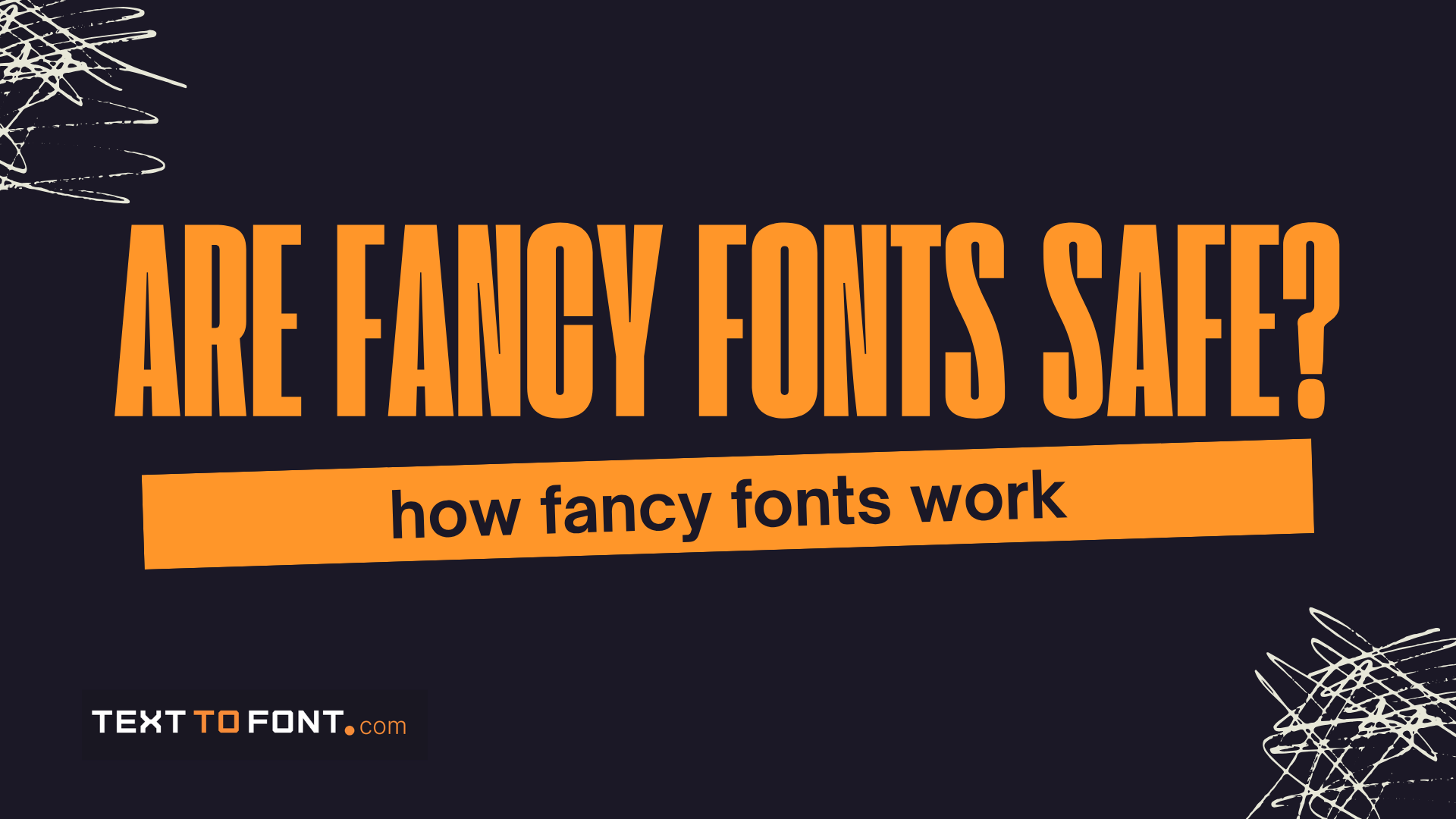
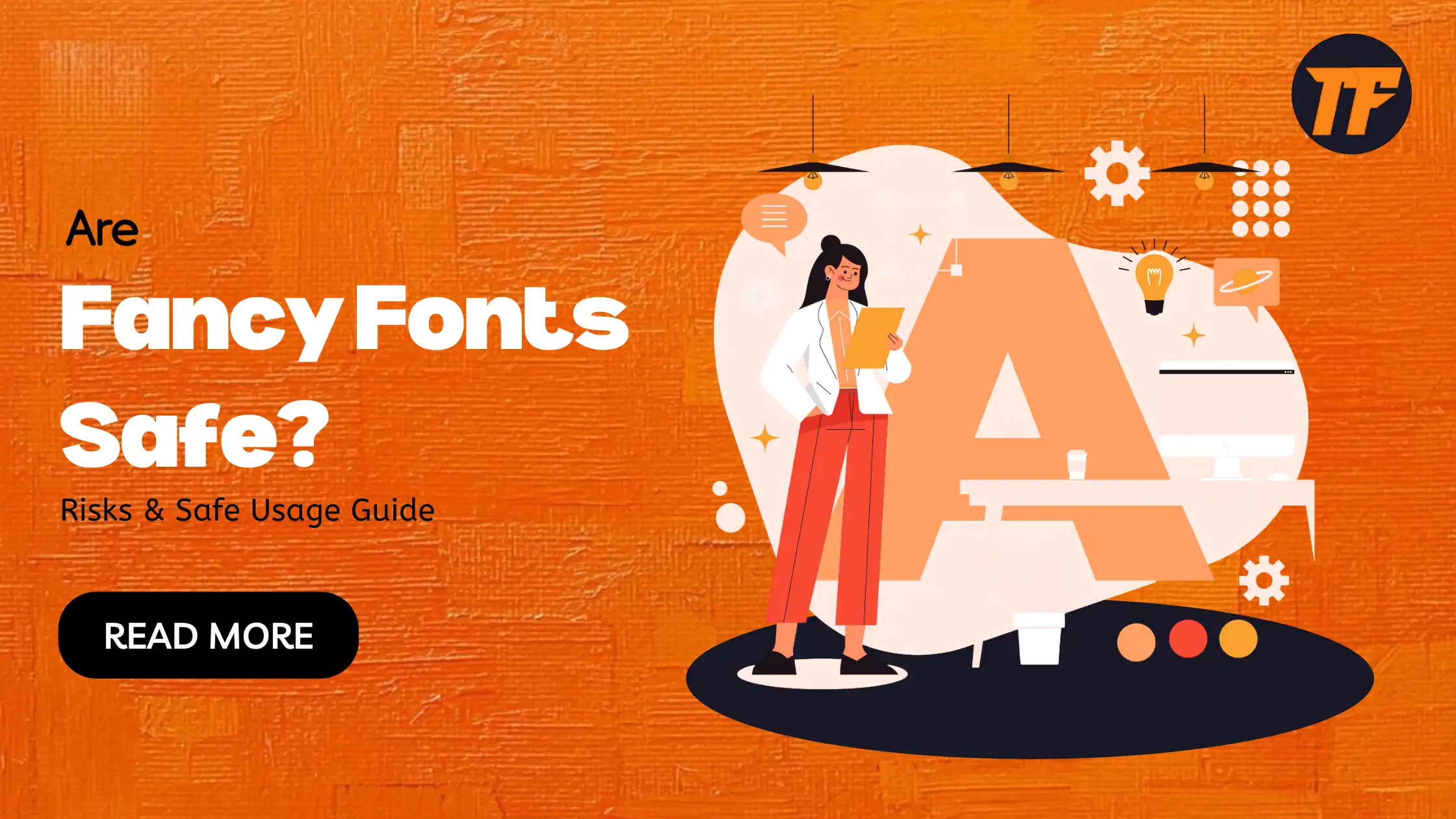
Fancy fonts are text styles that use different letters, symbols, emojis, and decorative characters. People often use them on social media, messaging apps, and online profiles to make their messages stand out.
While they can make text look fun and unique, not all fancy fonts are safe to use. Some can cause compatibility issues, glitches, or even security risks. In this article, we will explore how fancy fonts work, the risks they may pose, and tips for using them safely.
fancy fonts are generally safe for everyday use on social media and messaging apps. The main risks come from untrusted font generators (hidden scripts, data collection) not from the fonts themselves
Fancy fonts are text styles that go beyond standard letters and numbers. They often include symbols, emojis, accented characters, or decorative shapes that make text look unique or artistic. These fonts are usually created using Unicode characters, which are special codes that computers recognize as letters, symbols, or emojis.
When you type using a fancy font generator or app, your regular text is converted into these Unicode characters. Most modern devices and apps can display them correctly, but some older systems or platforms may show garbled or missing characters.
In general, fancy fonts are safe to use for fun messages, social media posts, and personal text. They mainly change how letters, numbers, and symbols appear, without affecting your device or accounts. Most modern apps, messaging platforms, and social media sites can display these fonts correctly, and for everyday use, they rarely cause any problems.
However, there are some important nuances to keep in mind. Fonts or generators from untrusted sources could include hidden links, scripts, or tracking codes, which can pose security risks.
Compatibility issues may also occur on older devices, certain apps, or email clients, causing text to appear garbled or broken. By using reputable tools and avoiding sensitive accounts, most users can enjoy fancy fonts safely while minimizing any potential risks.
While fancy fonts are generally safe, there are some risks users should be aware of. Understanding these risks can help you use styled text responsibly.
Some online font generators from untrusted sources embed hidden links, tracking scripts, or malicious code inside the styled text you copy. This overlaps with what security researchers call a 'homoglyph attack' using look-alike
Unicode characters to disguise malicious links or impersonate legitimate brands. Clicking these links or pasting unverified styled text into sensitive fields could expose your device or accounts to phishing attacks or malware
Many online font tools collect user data, such as the text you type or your IP address. Sharing sensitive information through these platforms may inadvertently expose personal data.
Not all devices, apps, or platforms can display fancy fonts correctly. Older operating systems or certain apps may show garbled, broken, or missing characters, which can affect readability.
Using fancy fonts in usernames, email addresses, or social media handles can sometimes be used to impersonate someone or mimic official accounts. This can create confusion or make it easier for scammers to trick others.
Some fancy fonts may be harder to read for people with visual impairments or when using screen readers. Overusing symbols and decorative characters can reduce accessibility and clarity.
Generating fancy fonts safely has become possible with Text to Font. This free tool allows you to convert regular text into decorative, emoji-filled, and stylish fonts without installing any software or risking your data.
Here’s how you can generate fonts with it:
Go to the official website of Text to Font.
Enter your simple text in the designated place.
The tool will convert it into fancy fonts by adding different fonts, emojis, and emoticons.
You can copy any fancy text by clicking on the “Copy” button in front of it.
Fancy fonts are fun to use, but keeping safety in mind ensures you avoid security, privacy, and compatibility issues. Here are some pro tips that can help you in this regard:
Only use fonts and generators from trusted sources to reduce the risk of hidden scripts or malware.
Avoid sharing sensitive information, such as passwords or personal details, in styled text that could be copied or intercepted.
Check how your text appears on different devices, apps, or platforms before sending or posting to ensure it remains readable.
Limit the use of excessive symbols, emojis, or decorative characters to maintain clarity and prevent confusion.
Be cautious when copying or pasting styled text from unknown websites, as it may include hidden links or tracking codes.
Fancy fonts can make text more creative, fun, and eye-catching, and for most everyday use, they are generally safe. However, using fonts from untrusted sources or overloading text with symbols can create security, privacy, and compatibility issues. By understanding how fancy fonts work, being aware of potential risks, and following safe usage tips, you can enjoy stylish text without compromising your device, accounts, or readability.
Yes, overly decorative fonts can be difficult for people with visual impairments or when using screen readers. It’s best to keep fonts readable and simple for important messages.
Use trusted font generators and avoid sharing sensitive information. Always check how your text looks on different devices before posting.